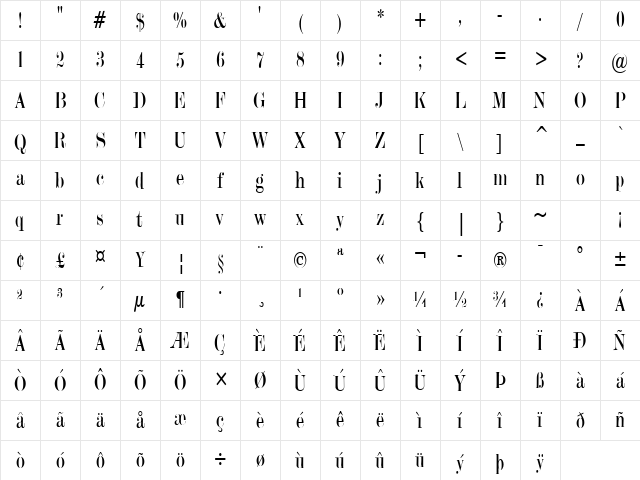
Update-Condensed Normal Free Font
Update-Condensed Normal
Update-Condensed Family
Design Context for Update-Condensed
Update-Condensed is a composed and adaptable typeface that performs quietly and consistently across a wide range of design contexts. Its narrow stance lets it pack a punch even in space-constrained designs.